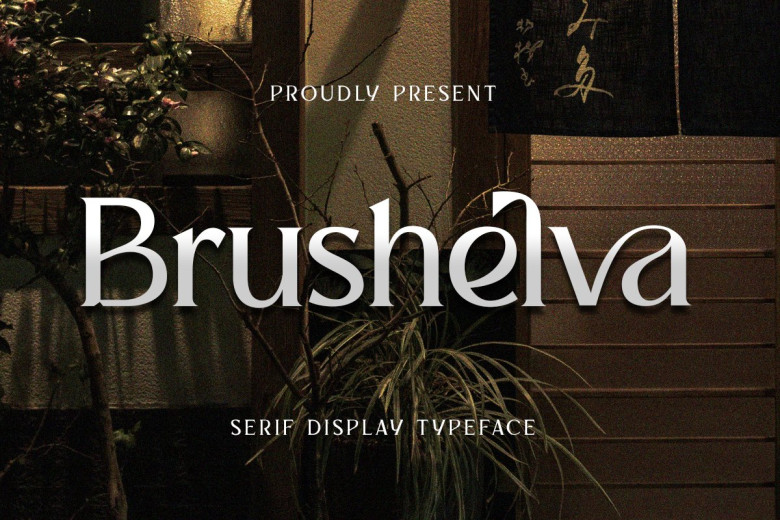
Brushelva Font
Brushelva is a classic serif font. With simple fonts in thin sizes that evoke elegance and class, this typeface can add sophistication and style to any logo, branding campaign, travel promotion campaign, magazine layout design layout magazine layout magazines packaging products quotes or as text over any background image.
Brushelva Serif Font